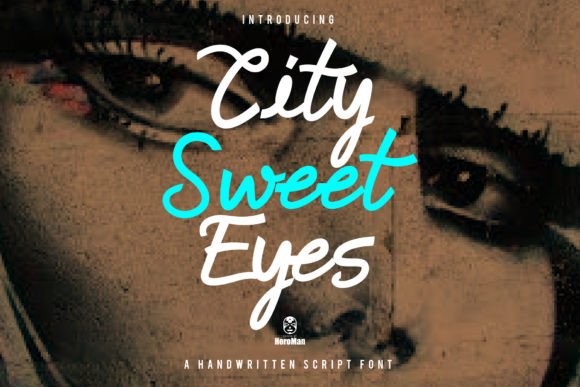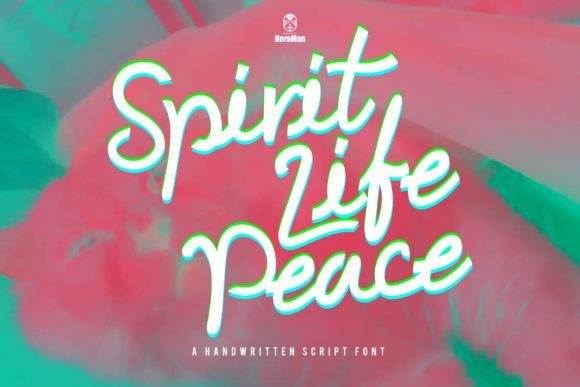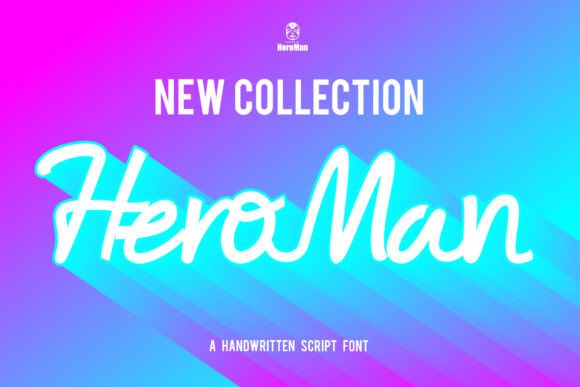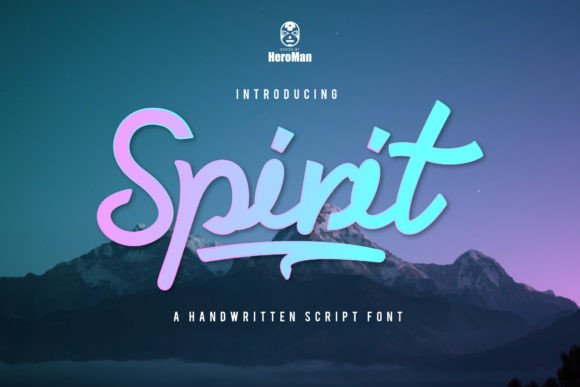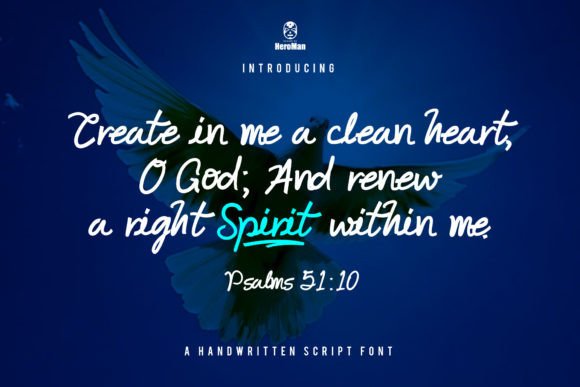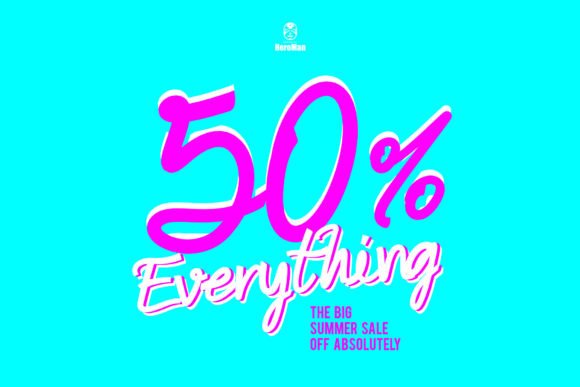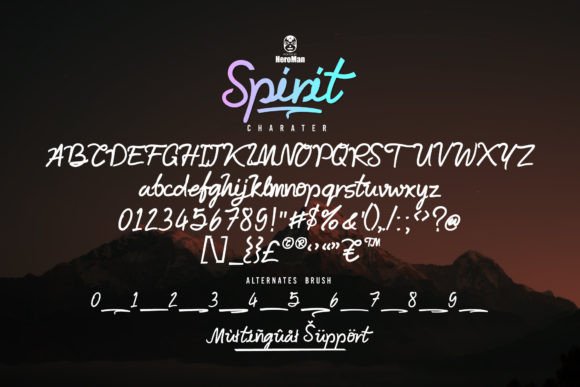
Spirit Font
About Spirit Font
Introducing “Spirit” – Your Fun and Whimsical Handwritten Font for Personal and Authentic Designs!
“**Spirit**” is not your average font; it’s a playful and whimsical handwritten typeface designed to bring a personal and authentic touch to your designs. Whether you’re working on magazines, books, branding, advertising, social media posts, or any creative project, “Spirit” is here to infuse your work with a fun and genuine vibe.
With “**Spirit**,” you’ll discover a font that exudes authenticity and charm. Its playful handwritten style adds character to your text, making it the perfect choice for creating designs that feel personal and realistic.
Imagine using “**Spirit**” to give your magazine layouts a unique and relatable look, make your books feel more approachable and engaging, add a touch of authenticity to your branding and advertising materials, or create social media posts that stand out with a fun and whimsical font.
Whether you’re a design enthusiast seeking a font that brings a delightful touch to your work or a professional looking to make your designs more relatable, “**Spirit**” is the typeface that can infuse your projects with personality and authenticity.